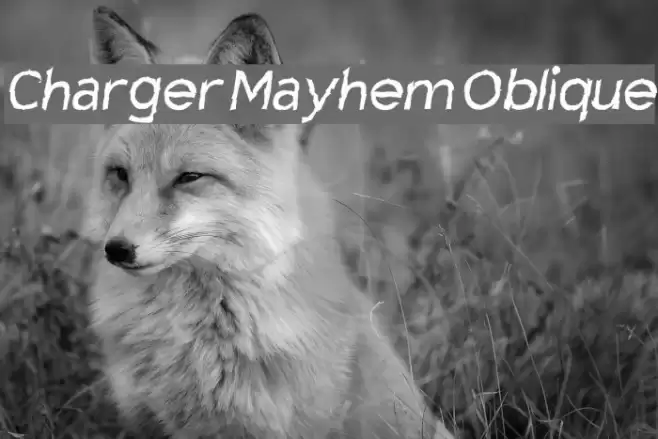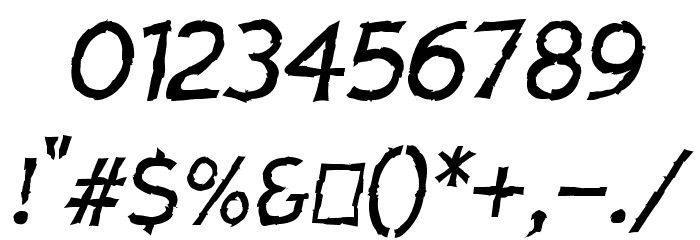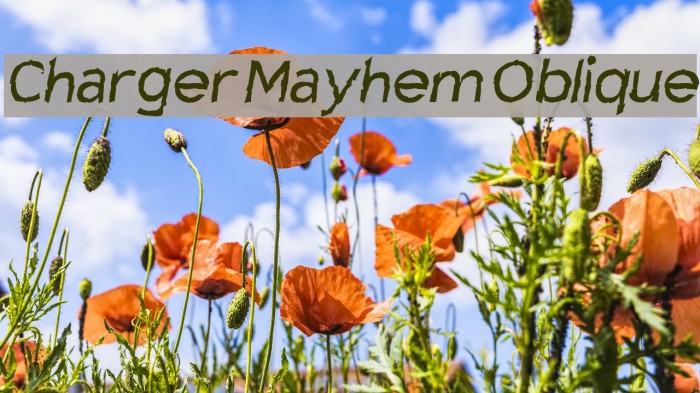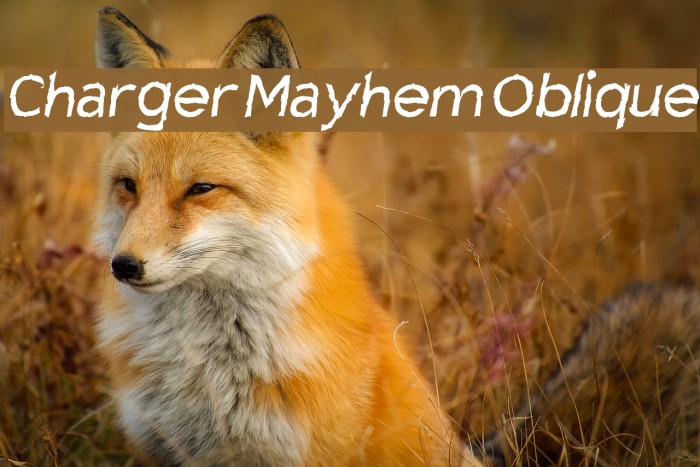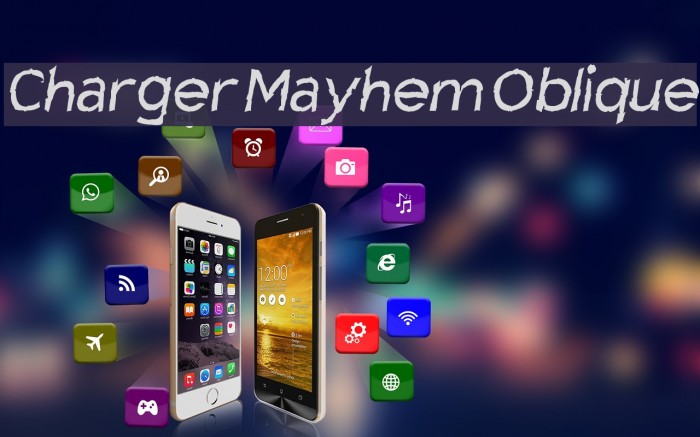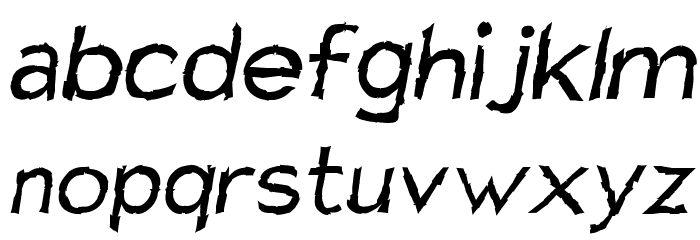
Charger Mayhem Oblique Font
Charger Mayhem Oblique Description
This font features a dynamic and edgy style, characterized by its oblique and angular letterforms. The strokes are bold and slightly irregular, giving it a sense of movement and energy. The uppercase and lowercase letters maintain a consistent slant, enhancing the font's modern and rebellious aesthetic. The numbers and special characters follow the same design principles, ensuring uniformity across all glyphs. This font's unique appearance makes it stand out, suitable for projects that require a bold statement.
A dynamic, oblique font with bold, angular strokes and a modern, edgy style from Uncategorized fonts.